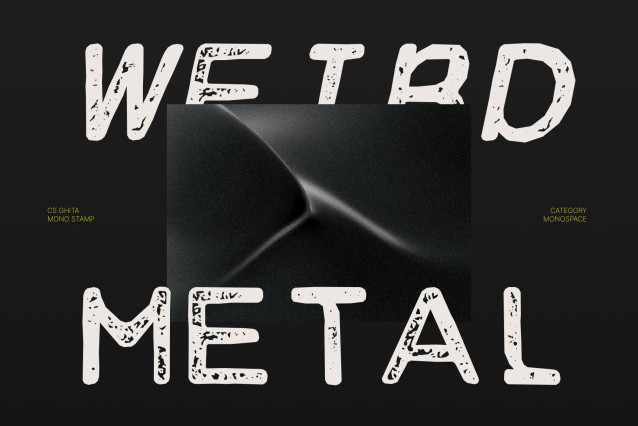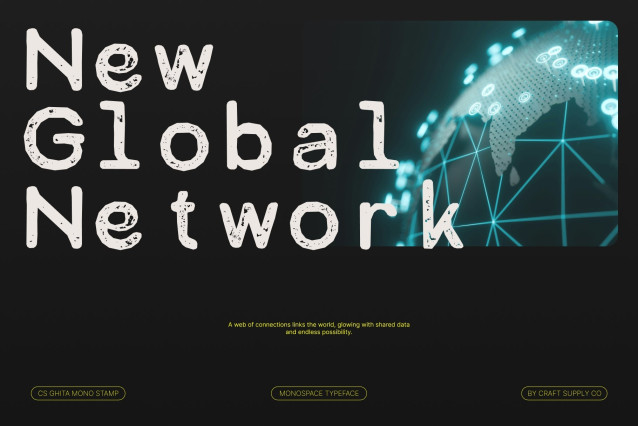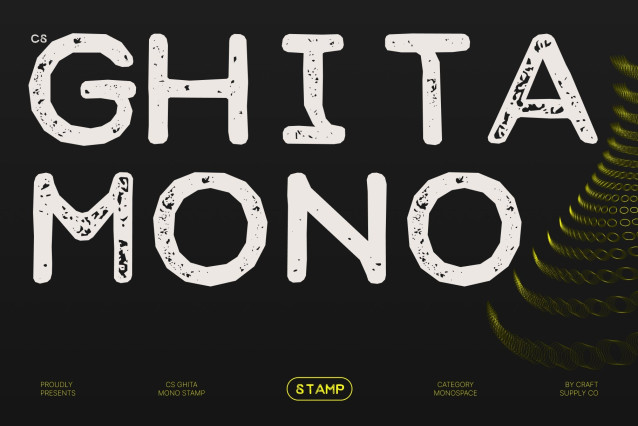
CS Ghita Mono Stamp Font
Elegant Monospaced Sophistication with Vintage Texture
Modern Monospaced Sans Serif with Stamp Character
This is a contemporary monospaced sans serif font that blends sleek precision with a subtle vintage stamp texture. Each character maintains equal width for perfect alignment, while the stamped effect introduces a tactile, ink-pressed feel that adds warmth and personality to its structured design.
Clean Lines with Artistic Imperfection
The smooth minimalist forms are enhanced by gentle distressed details, giving the font a handcrafted and slightly worn appearance. This balance between geometric precision and textured imperfection creates a unique aesthetic that feels both modern and nostalgically printed.
Structured Readability with Vintage Personality
Designed for clarity and organization, this monospaced font excels in programming, editorial layouts, and technical content. The stamp effect softens the rigid structure, making it equally suitable for creative branding, posters, packaging, and presentation design that seeks a refined yet human touch.